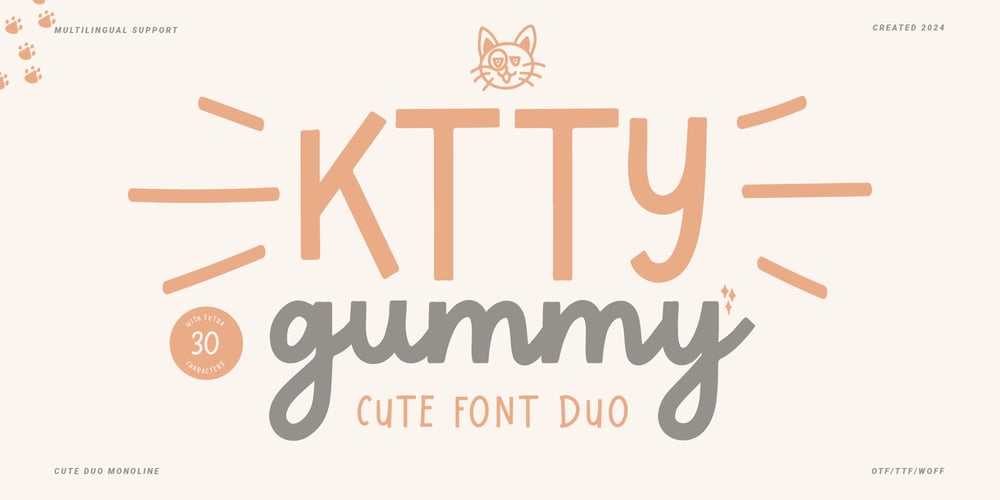
Ktty Gummy Script Font Family was designed by Dede Nugraha and published by Denustudio. Ktty Gummy Script contains 2 styles and family package options. Ktty Gummy | Cute Font Duo, from Denustudios, suitable for any projects such as: logos, branding projects, homeware designs, product packaging, mugs, quotes, posters, shopping bags, t-shirts, book covers, name card, invitation cards, greeting cards, label, photography, watermark, special events, and all your other lovely projects that need a Cute Font Duo taste.===========================================================================What’s Included : Regular and Italic Web Font Standard glyphs Alternate and Ligature Works on PC & Mac Simple installations Accessible in the Adobe Illustrator, Adobe Photoshop, Adobe InDesign, even work on Microsoft Word and Other Software. PUA Encoded Characters – Fully accessible without additional design software. Fonts include multilingual support Hope you enjoy with our font!